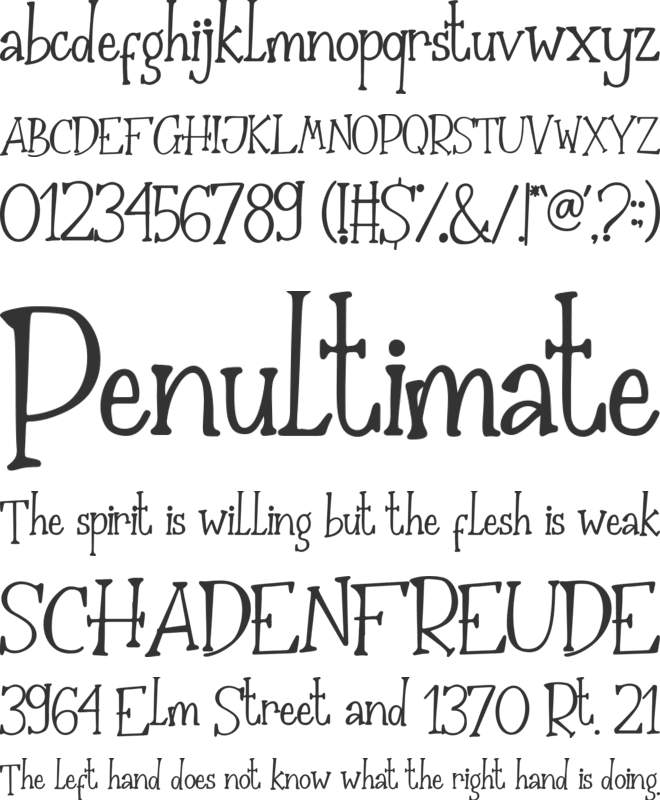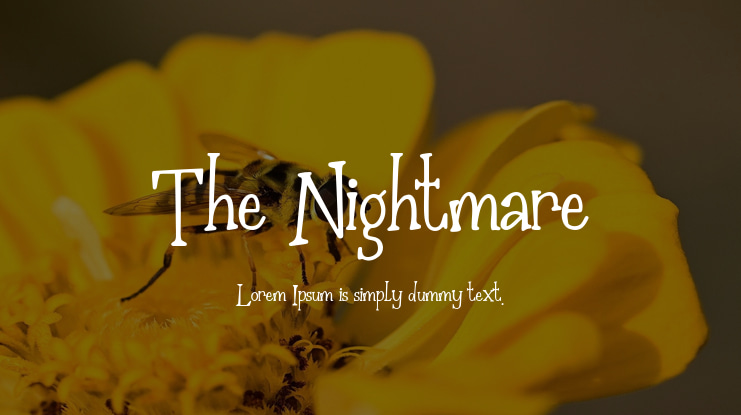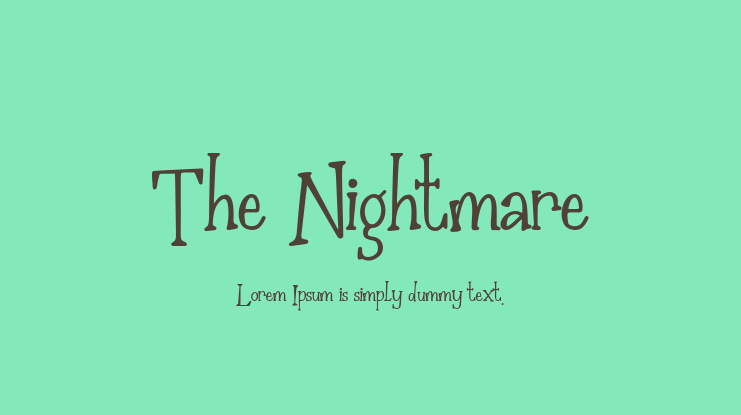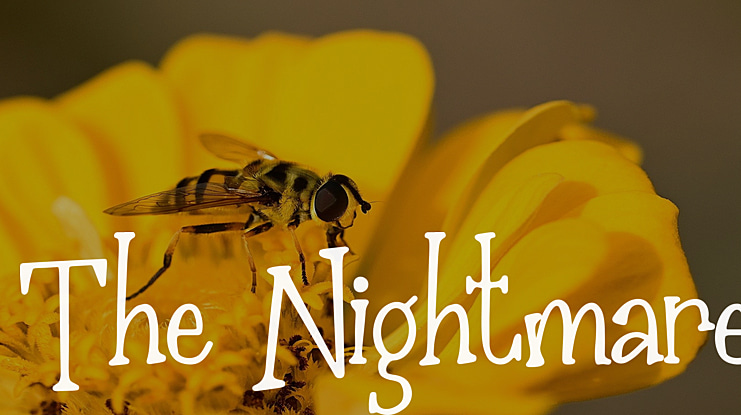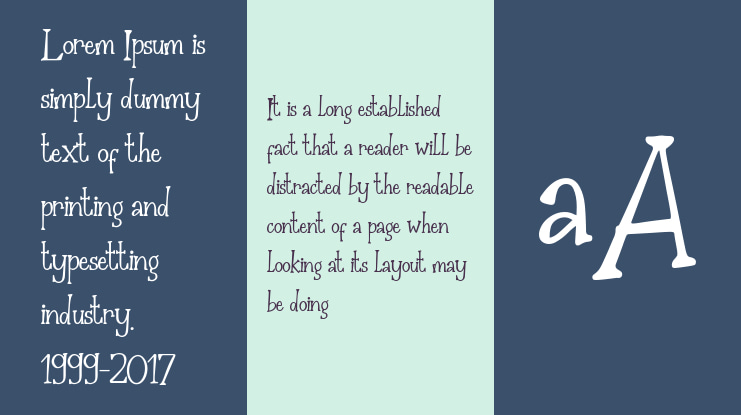
The Nightmare Font
This enchanting font will turn any creative idea into a true standout. Perfect fit for all of your logos, branding, social media, etc. Get creative with its unique playfulness, and use it to brighten up any crafting project!